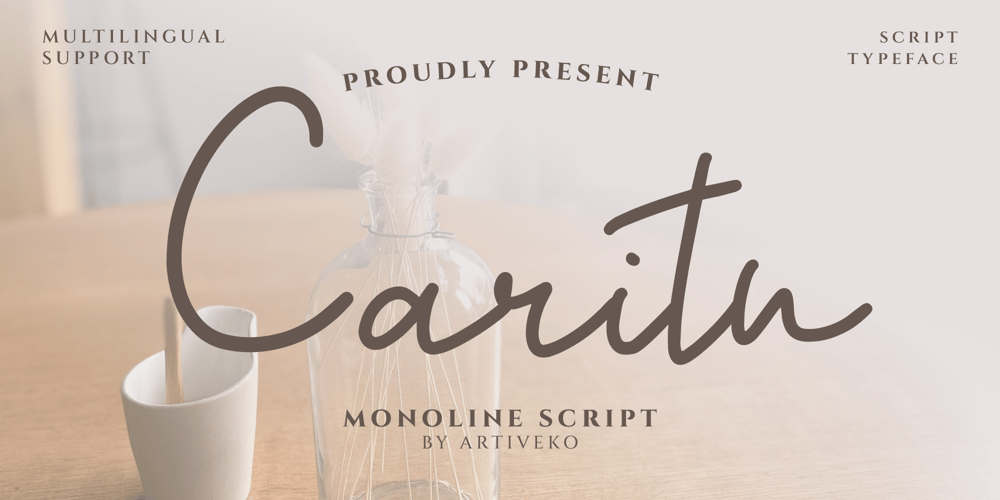
Caritu Font Family was designed by Iwan Alwan and published by Artiveko. Caritu contains 2 styles and family package options. CarituA feminine script font designed by Iwan Alwan, featuring a unique blend of elegance and playfulness. With its distinct uppercase and lowercase variations, Caritu offers versatility for a wide range of design projects. The font supports multiple languages and includes a set of alternates, allowing for creative customization. Its graceful curves and stylish flair make Caritu perfect for invitations, branding, and any project that seeks a touch of sophistication and charm.